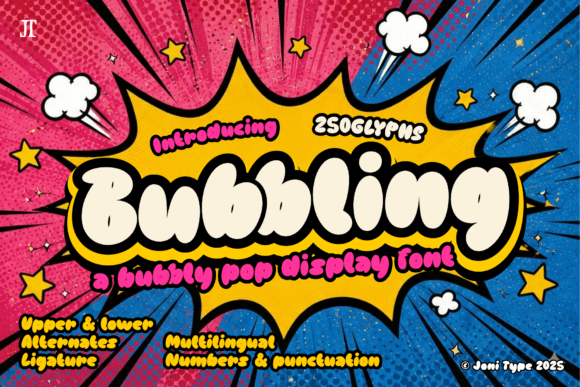
Bubbling Font: A Bold Display Typeface for Campaign Energy
It’s 3:47 p.m. on launch day — and I’m tweaking the final YouTube thumbnail for a new online course series. The background is vibrant but busy. The headline needs to pop *immediately*, even at thumbnail size. I try three fonts. One feels too stiff. Another vanishes against the gradient. Then I drop in Bubbling. Instant lift. Not just visually — emotionally. That’s when it clicks: Bubbling isn’t just a font. It’s a mood shift, built into letterforms.
What Bubbling Actually Delivers in Real Campaign Work
Bubbling is a premium display font — not a utility typeface, not a body text solution, but a deliberate visual accent. Its chunky, rounded letterforms carry weight without heaviness. The curves are generous, almost bouncy. Proportions are intentionally exaggerated: tall x-heights, wide counters, open apertures. It reads as cheerful, confident, and unapologetically playful — but never childish or chaotic. In practice, that means it lands with clarity in fast-scrolling feeds, holds attention in static banners, and adds warmth to otherwise flat digital ads.
I used it across six touchpoints for a summer content series: Instagram post headers, Pinterest pin titles, a webinar banner, email promo banners, Reels cover text, and a limited-edition digital template pack. In every case, Bubbling served as the “hook” — the first thing the eye locked onto. It didn’t need animation or extra effects. Its shape alone created movement.
Where Bubbling Shines (and Where It Steps Back)
Bubbling excels in short-form, high-impact contexts:
That said, Bubbling isn’t built for dense information. I tested it in a multi-line product description block on a landing page — it overwhelmed the supporting copy and slowed scanning. It also loses impact below ~28px on mobile previews, especially over textured or dark backgrounds without careful contrast adjustment. And while it pairs beautifully with clean sans serifs for balance, it doesn’t replace them. Think of it as the lead vocalist — strong presence, but it needs backing vocals (your secondary font) to land the full message.
Practical Pairing & Production Notes
In every campaign where Bubbling worked best, I paired it with a neutral, highly legible sans serif — usually Inter, Poppins, or Montserrat — for body copy, captions, and fine print. The contrast was immediate: Bubbling brought energy; the sans brought clarity. For a more editorial feel, I tried it with a warm, low-contrast serif like Lora — surprisingly effective for quote graphics or workshop branding, where warmth matters more than urgency.
Readability Tips for Fast-Moving Feeds
On mobile and small previews, Bubbling benefits from simple treatments:
1. Use it at 36px minimum for Instagram feed posts — smaller sizes sacrifice its defining curves.
2. Always add at least 1–2px of subtle stroke or soft shadow when overlaying on photos or gradients.
3. Avoid placing it directly over busy patterns — give it breathing room with a solid color bar or blurred vignette behind the text.
4. For dark mode previews, test on actual devices: Bubbling’s rounded terminals hold up well, but white-on-black needs slightly increased tracking to prevent visual crowding.
5. Never stretch or condense the font manually — its charm lives in its natural proportions.
One unexpected win? Email banners. With image-blocking still common, I kept Bubbling as live text (not embedded) in HTML email headers — and it rendered crisply across Apple Mail, Gmail, and Outlook. Its robust outlines prevented pixelation, and the friendly tone softened what could’ve felt like a salesy subject line.
When to Reach for Bubbling — and When to Pause
Reach for Bubbling when your goal is to signal approachability, joy, or lighthearted confidence — think product teasers, community-building campaigns, creative workshops, or seasonal content with upbeat energy. It strengthens brand recognition not through repetition alone, but by making each headline feel like a small moment of delight.
Pause before using it for formal announcements, legal disclaimers, data-heavy infographics, or any context where neutrality, precision, or gravitas is the priority. It’s not “unprofessional” — it’s simply tonally specific. Like choosing a bright yellow highlighter instead of a black pen: both are tools, but they serve different jobs.